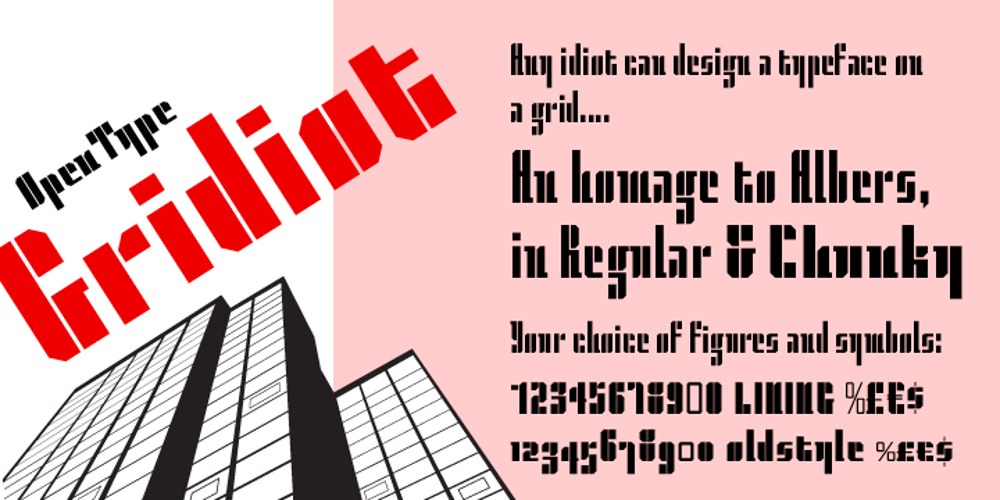
Gridiot Font Family was designed by Peter Bain and published by Peter Bain. Gridiot contains 2 styles and family package options. Gridiot is a constructed, semi-serif, two-weight stencil family that expands an approach taken by Josef Albers. Intended for display or headline setting, it features chamfered or bevel-cut corners, used instead of curves. The individual letter components sometimes vary in depth, avoiding a strictly modular approach, while the widths are kept consistent. The lining figures provide a standard set of numbers, and the oldstyle figures align with the lowercase, encouraging lowercase-only setting. Currency and other useful numerical symbols are provided in both versions. The zero is intentionally lighter, following early Renaissance types; there are filled versions as stylistic alternates. While horizontal scaling distorts the relationship between verticals and horizontals in a typeface, since every chamfer in Gridiot is at 45°, changing the horizontal scaling of the type will affect all diagonals equally. When used at a large size, or for a just few words, Gridiot can be very tightly spaced. Remember, any idiot can design a typeface on a grid: Gridiot.